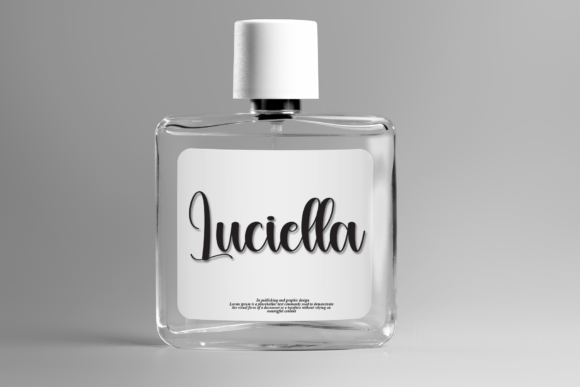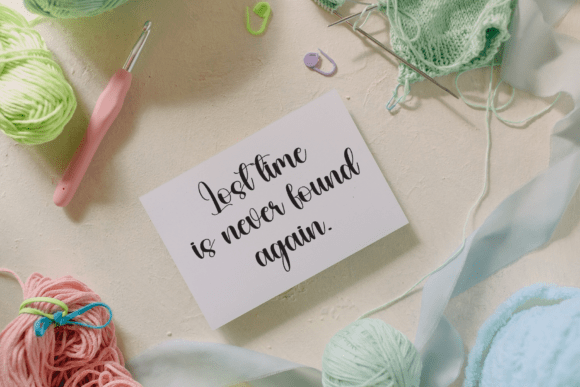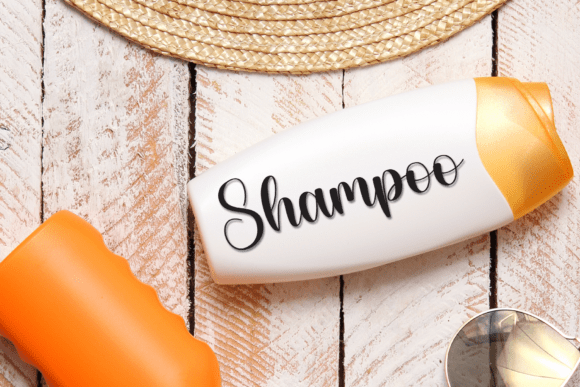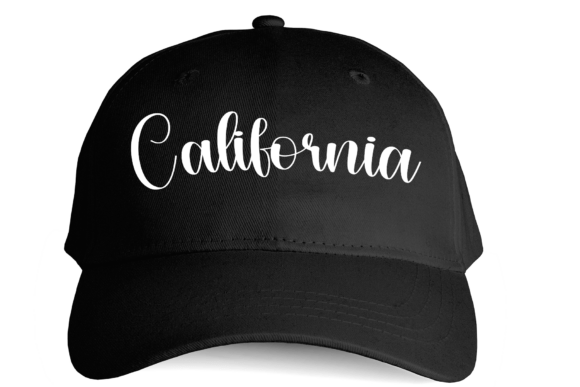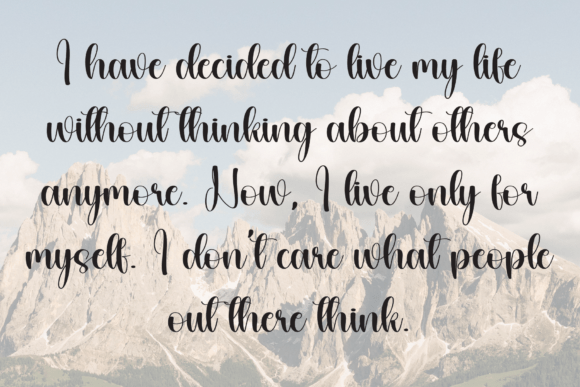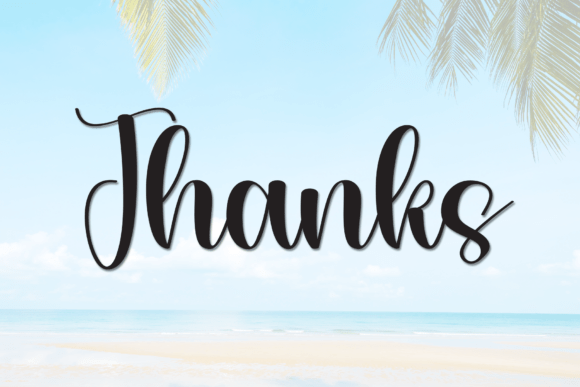
Discover the Timeless Charm of the Beach Summer Font
As a designer, have you ever found yourself gazing out at the sun-kissed waves, feeling the ocean breeze in your hair, and suddenly envisioning the perfect wedding invitation? For many creatives, the beach is a haven of inspiration, where the rhythms of the sea and the warmth of the sun spark ideas and imagination. It’s exactly this feeling that the Beach Summer Font embodies, with its elegant script style and carefree charm.
This beautiful font is more than just a pretty face – it’s a versatile tool for designers looking to add a handwritten touch to their projects. Whether you’re crafting wedding invitations, thank-you cards, or business cards, the Beach Summer Font is sure to make a lasting impression. Its timeless elegance and beachy vibe make it a valuable asset for any designer looking to elevate their work and connect with their audience on a deeper level.
Beach Summer Font Key Features
- Unique Characteristics: Whimsical, cursive script with a beach-inspired aesthetic, featuring flowing lines and organic shapes.
- Style Variations: Includes a range of styles, from casual to elegant, allowing designers to choose the perfect tone for their project.
Designer Review: Beach Summer Font
I recently had the chance to work with the Beach Summer Font, and I must say it’s a mixed bag. On the one hand, here are some things that really work well:
- ✨ The font is incredibly playful and captures the carefree vibe of a summer day at the beach.
- ✨ The font is highly customizable, making it easy to adjust the style to fit your specific design needs.
- ✨ The font includes a wide range of characters, including numerals, punctuation, and even some fun beach-themed icons.
However, I did encounter some limitations that may impact your decision to use the font:
- ⚠️ The font may be too playful for more formal designs, so be sure to use it in a project that matches its lighthearted tone.
- ⚠️ The font is not as versatile as some other fonts on the market, so you may need to pair it with other fonts to create a more cohesive design.
- ⚠️ The font is not suitable for very small font sizes, so be sure to test it out at various sizes before finalizing your design.
Overall, I think the Beach Summer Font is a great choice for projects that require a fun, carefree vibe. Just be aware of its limitations and use it accordingly.
Use the “Beach Summer Font” for summer-themed designs, such as beach vacation posters, summer sale announcements, and outdoor event invitations.
Pair the font with bright and bold colors to create a fun and playful atmosphere.
The “Beach Summer Font” is ideal for:
- Summer-themed designs
- Beach vacation posters
- Summer sale announcements
- Outdoor event invitations
Alternative Fonts to Beach Summer Font
Pacifico is a beautiful, elegant, and modern script font. It’s perfect for designs that require a touch of sophistication and elegance, such as wedding invitations, luxury branding, and high-end advertising.
Compared to Beach Summer Font, Pacifico is more refined and polished, while Beach Summer Font has a more casual, laid-back feel. Pacifico is ideal for designs that require a level of sophistication and luxury, while Beach Summer Font is better suited for casual, summer-themed designs.
Great Vibes is a fun, energetic, and playful script font. It’s perfect for designs that require a lot of energy and movement, such as music festival branding, outdoor advertising, and youth-oriented marketing campaigns.
Compared to Beach Summer Font, Great Vibes is more energetic and playful, while Beach Summer Font has a more relaxed and casual feel. Great Vibes is ideal for designs that require a lot of energy and movement, while Beach Summer Font is better suited for designs that require a more laid-back atmosphere.